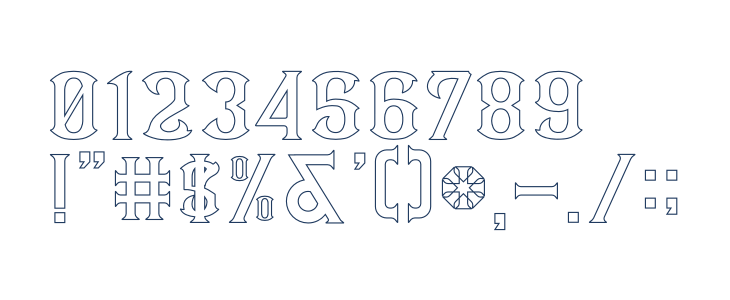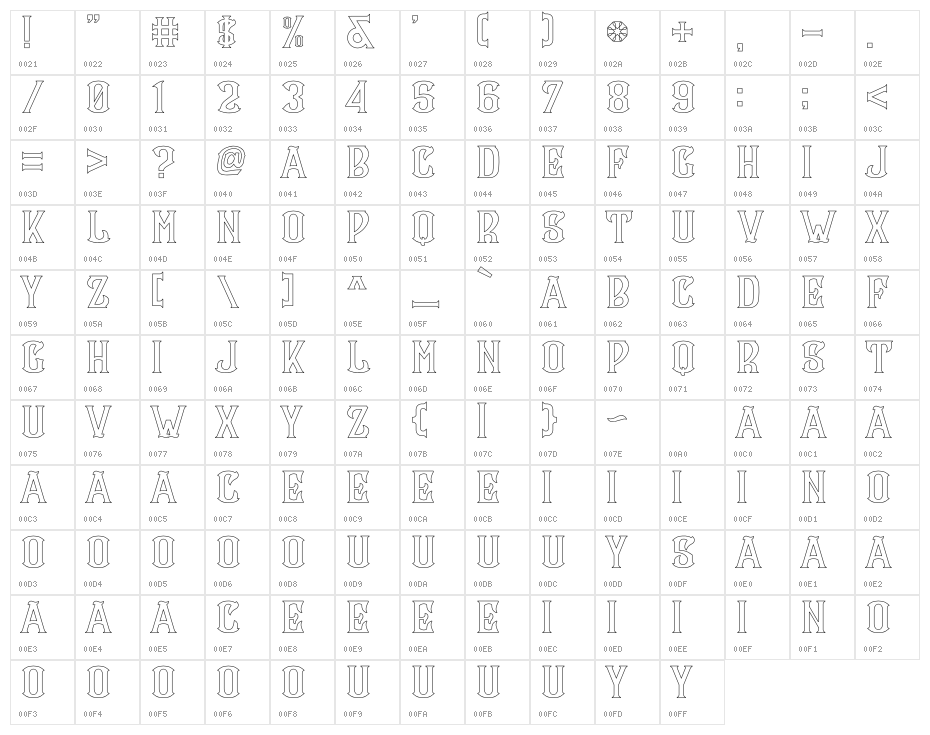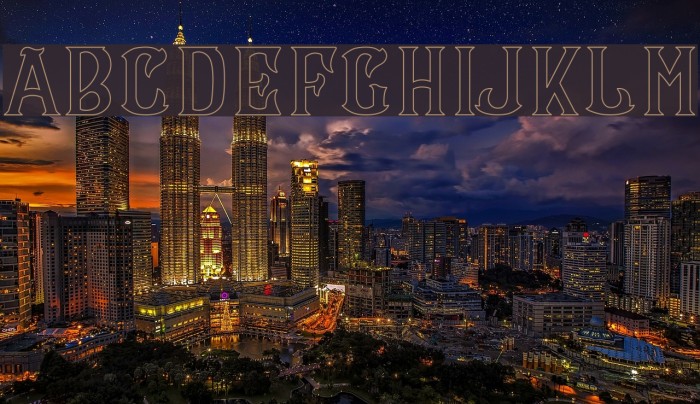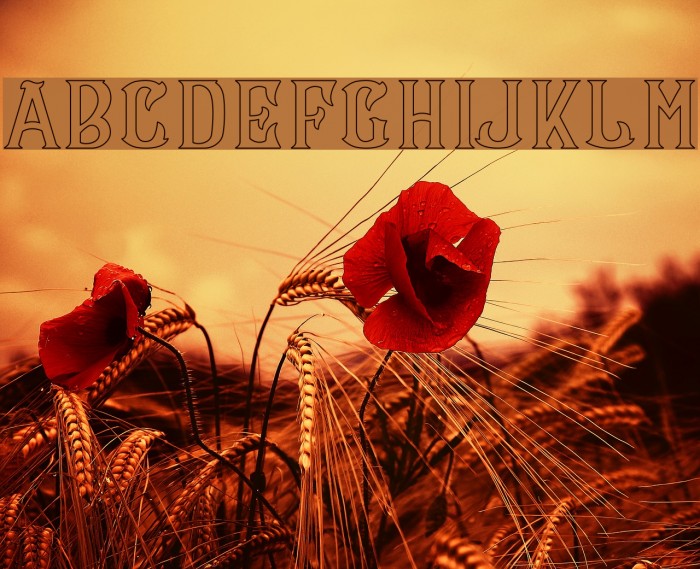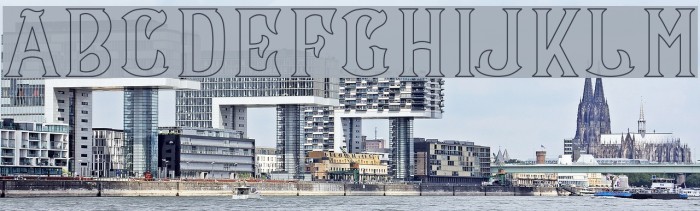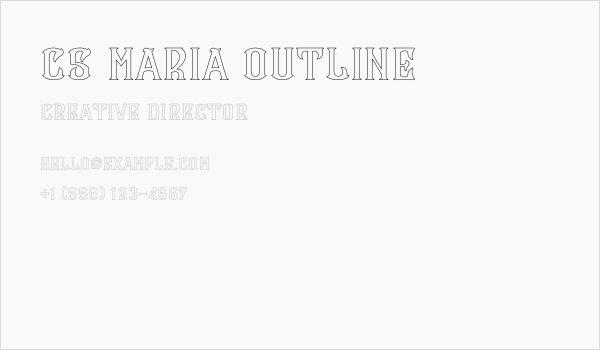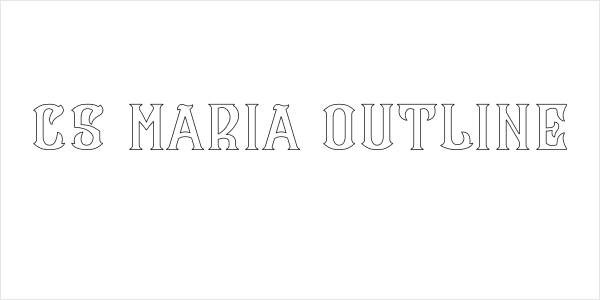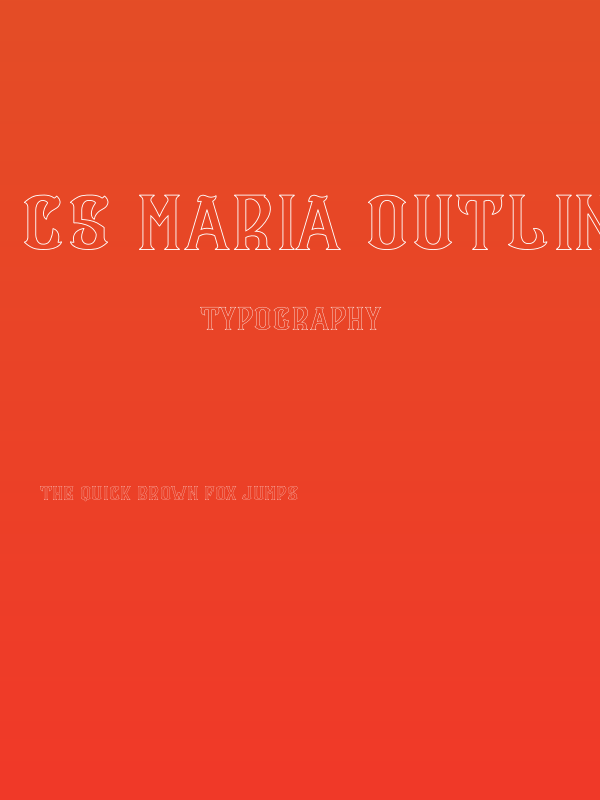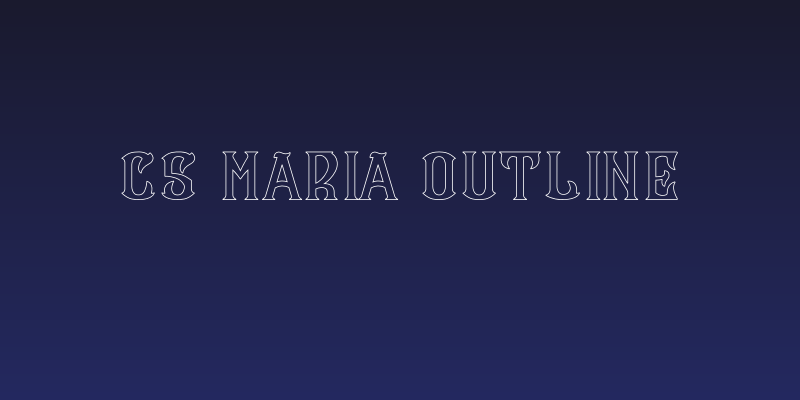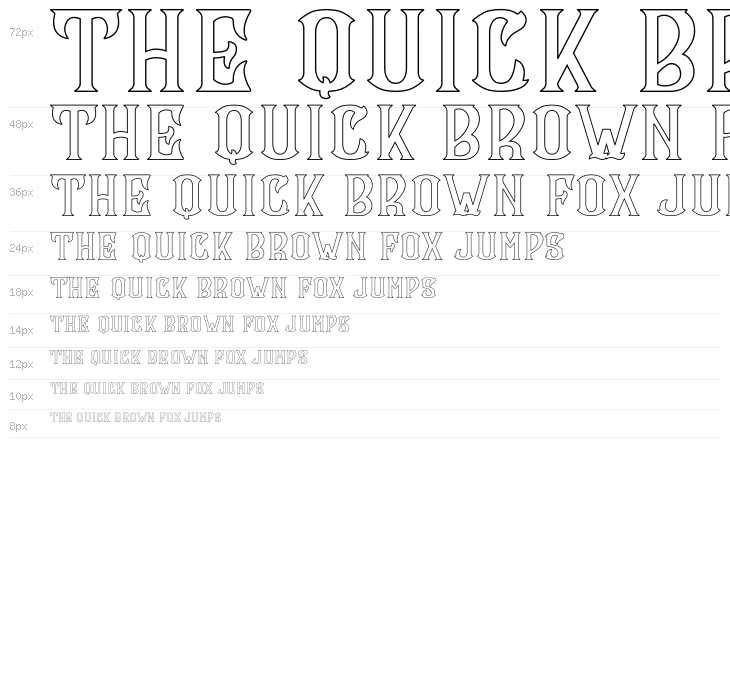
CS Maria Outline Font
CS Maria Outline Description
This font features a distinct outline style with a decorative flair, characterized by its bold, angular shapes and unique serifs. The uppercase letters exhibit a strong presence with their geometric forms, while the lowercase letters maintain a consistent style that complements the uppercase. The numerals are equally bold, ensuring readability and visual impact. Special characters are designed with the same attention to detail, making them suitable for various creative applications. The overall design is both modern and vintage, offering versatility in its use.
| Overall Style | Modern, Vintage |
| Proposed Projects | Ideal for branding, poster design, headlines, and any project requiring a strong visual impact. |